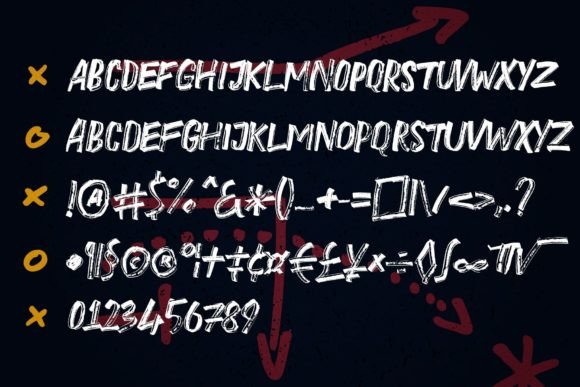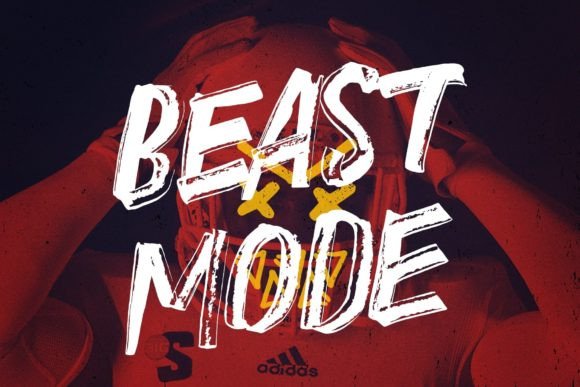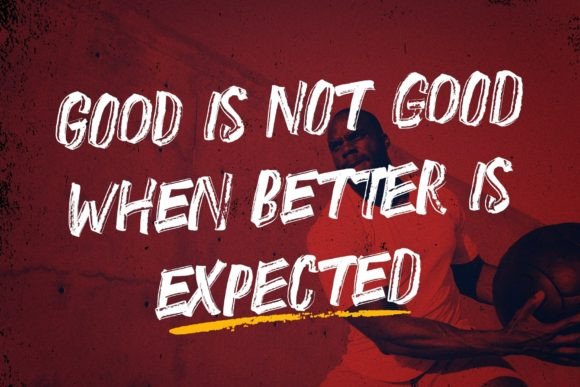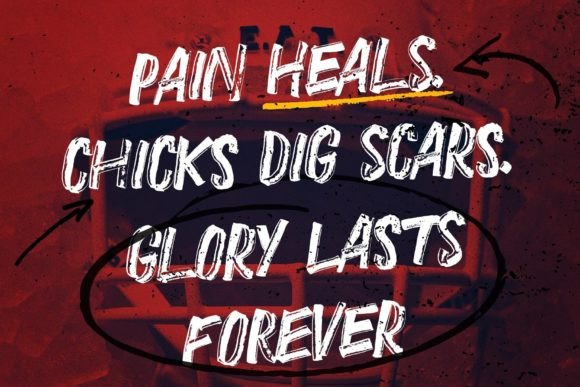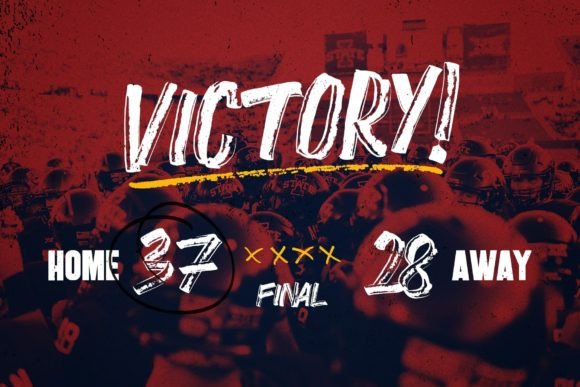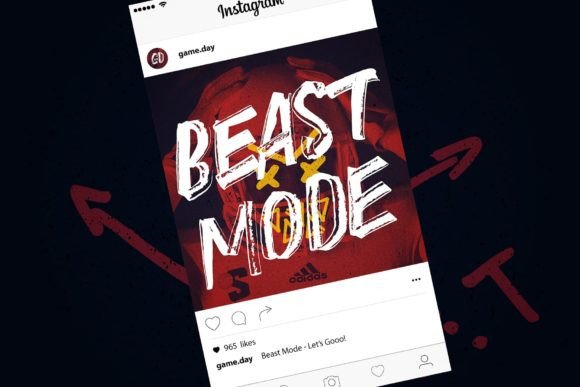
The Ultimate Game Day Font: A Designer’s Dream Come True
It’s game day, and you’re on a mission to create stunning graphics for your favorite team. You’re scrolling through fonts, but nothing seems quite right. That’s when you stumble upon the Game Day font – a sports-themed, hand-drawn masterpiece that makes your heart skip a beat. I know the feeling; I’ve been there too. As a designer, I’ve had my fair share of struggles finding the perfect font for a project. But today, I’m excited to share with you why Game Day has become my go-to font for all things sports-related.
A Personal Review: What I Love About Game Day
So, what makes Game Day so special? Here are a few things that I absolutely love:
- ✨ Hand-drawn charm: Game Day boasts a unique, hand-drawn style that gives it a personal touch. It’s perfect for creating graphics that feel authentic and engaging.
- ✅ All-caps with a twist: As an all-caps font, Game Day is perfect for headlines and titles. But what really sets it apart is the inclusion of alternate characters in the lowercase position, adding an extra layer of versatility.
- 🎉 Additional italic version: The font comes with an italic version, which is perfect for adding emphasis or creating a sense of movement in your designs.
- 📚 Hand-drawn themed graphics: The package includes a set of hand-drawn themed graphics, perfect for drawing up plays like the pros. It’s a thoughtful touch that adds an extra layer of value to the font.
While Game Day is an excellent font, there are a few minor quirks to be aware of:
- 🤔 Limited use cases: As a sports-themed font, Game Day might not be the best fit for non-sports-related projects. However, if you’re looking for a unique font that can add a touch of personality to your designs, it could still work.
- ⚠️ Glyphs and OpenType features: While Game Day supports OpenType features and glyphs, some users might find the learning curve a bit steep. However, with a little practice, you’ll be able to unlock the font’s full potential.
The Designer Inspiration Behind Game Day
The Game Day font was created with the sports enthusiast in mind. The designer, a sports fan themselves, wanted to create a font that captured the energy and excitement of game day. With its hand-drawn charm and sports-themed graphics, Game Day is the perfect tool for designers who want to create engaging graphics for their favorite teams.
- Q: What type of projects is Game Day best suited for?
- A: Game Day is perfect for sports-related projects, such as creating graphics for social media, team logos, and sports-themed designs.
- Q: Does Game Day support OpenType features and glyphs?
- A: Yes, Game Day supports OpenType features and glyphs, allowing you to access alternate characters and create custom designs.